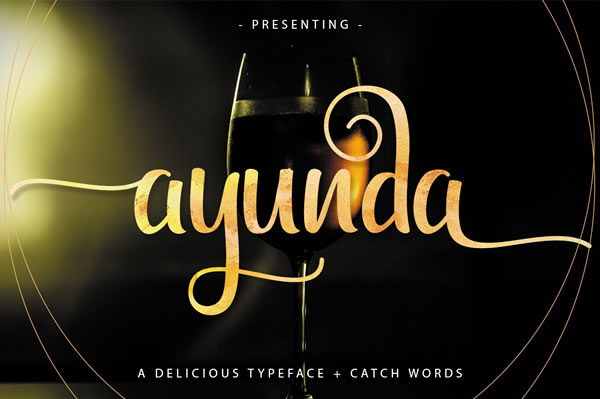
Embark on a typographic escapade with Ayunda Font, a captivating handwritten font that breathes life into your creative endeavors. Crafted by the skilled hands at Stipline Studios, Ayunda boasts a casual style that dances across your designs with effortless grace.
With 337 unique glyphs at your fingertips, including captivating catch words, Ayunda opens up a world of possibilities for expressing your individuality. From whimsical invitations to heartfelt love letters, Ayunda's enchanting strokes add a touch of genuine charm to every project.
Unleash your imagination and let Ayunda's fluid lines guide you towards stunning designs. Whether you're a seasoned artist or just starting your creative journey, Ayunda's user-friendly nature welcomes you with open arms.
Transform your digital creations into captivating masterpieces with Ayunda's enchanting presence. Let its graceful curves and playful catch words ignite your creativity and leave a lasting impression on your audience.